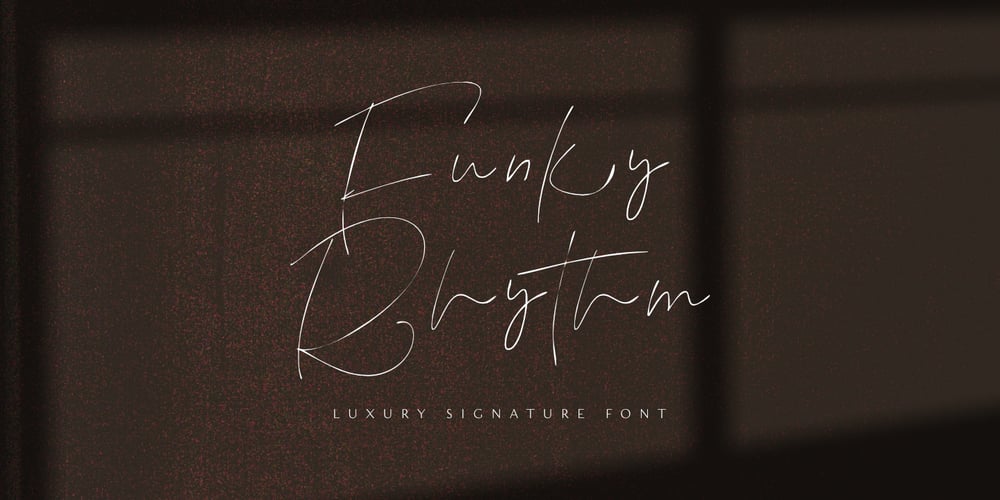
Funky Rhythm
Funky Rhythm font
Funky Rhythm Font Family was designed by Aldy Sidik and published by Epiclinez. Funky Rhythm contains 1 styles and family package options. Funky Rhythm is a luxurious signature script font with a natural flow. This font is a good choice for an Instagram post, movie titles, album cover, book/ebook title, YouTube cover, and of course high-end, sophisticated branding design.So what’s included: Basic Latin, numbers, symbols, and punctuations Simple Installations: works on PC & Mac Multilingual Support includes Afrikaans Albanian Catalan Danish Dutch English Estonian Finnish French German Italian Norwegian Portuguese Spanish Swedish Zulu. Accented Characters : ÀÁÂÃÄÅÆÇÈÉÊËÌÍÎÏÑÒÓÔÕÖØŒŠÙÚÛÜŸÝŽàáâãäåæçèéêëìíîïñòóôõöøœšùúûüýÿžß Accessible in Adobe Illustrator, Adobe Photoshop, Adobe InDesign, even works on Microsoft Word PUA Encoded and fully accessible without additional design software Thank you! We hope you enjoy our font!